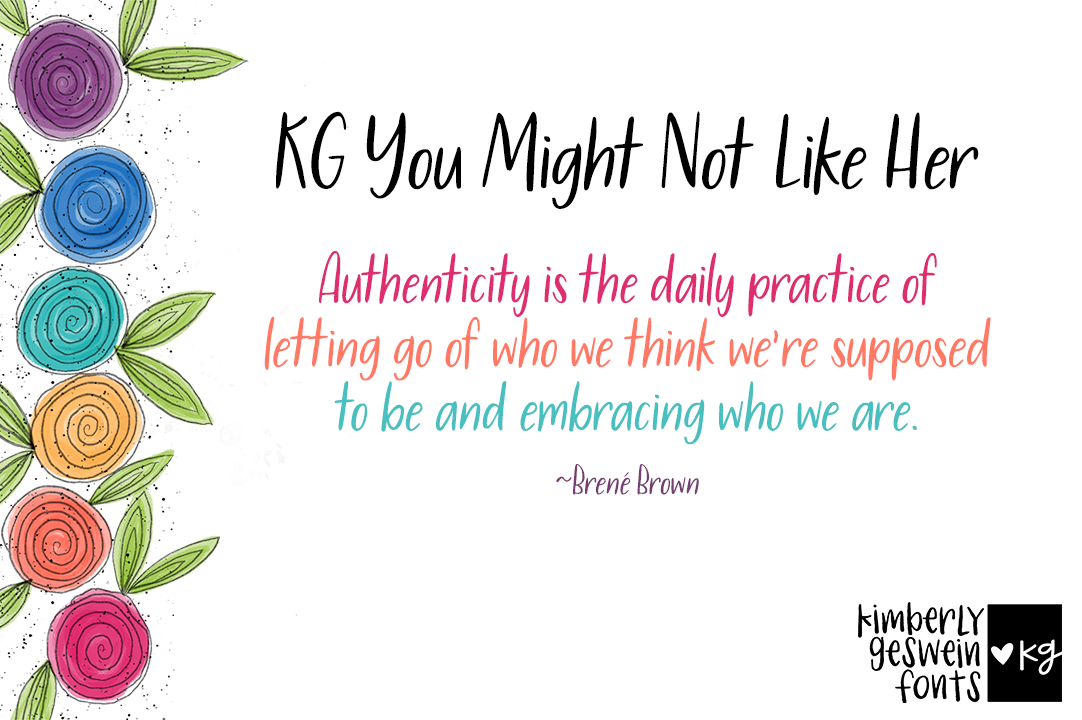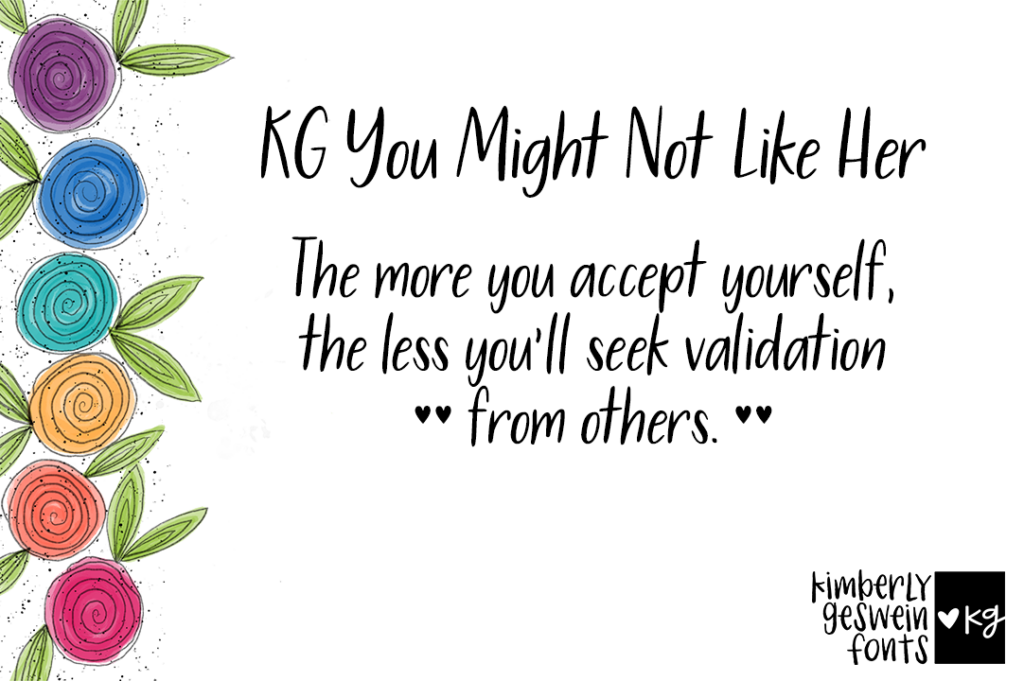
KG You Might Not Like Her
This handwritten font, KG You Might Not Like Her, is a delightful combination of neatness, readability, and playfulness. The letters are easy on the eyes and highly legible, making it a breeze for readers to engage with your content. The upbeat nature of the font adds a touch of personality and friendliness to your text, making it ideal for a wide range of applications, from personal notes and invitations to product packaging and book titles. This typeface strikes the perfect balance between professionalism and approachability, making it the perfect choice for any project that needs a touch of creative flair.